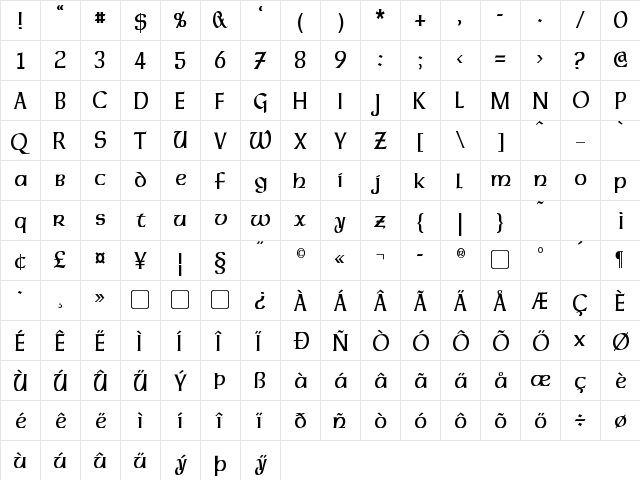
Dalelands Uncial Condensed Regular
| Foundry | Neale Davidson |
| Designer | Neale Davidson |
Design Context for Dalelands Uncial Condensed Typeface
Dalelands Uncial Condensed is a composed and adaptable typeface that performs quietly and consistently across a wide range of design contexts. Its narrow stance lets it pack a punch even in space-constrained designs.